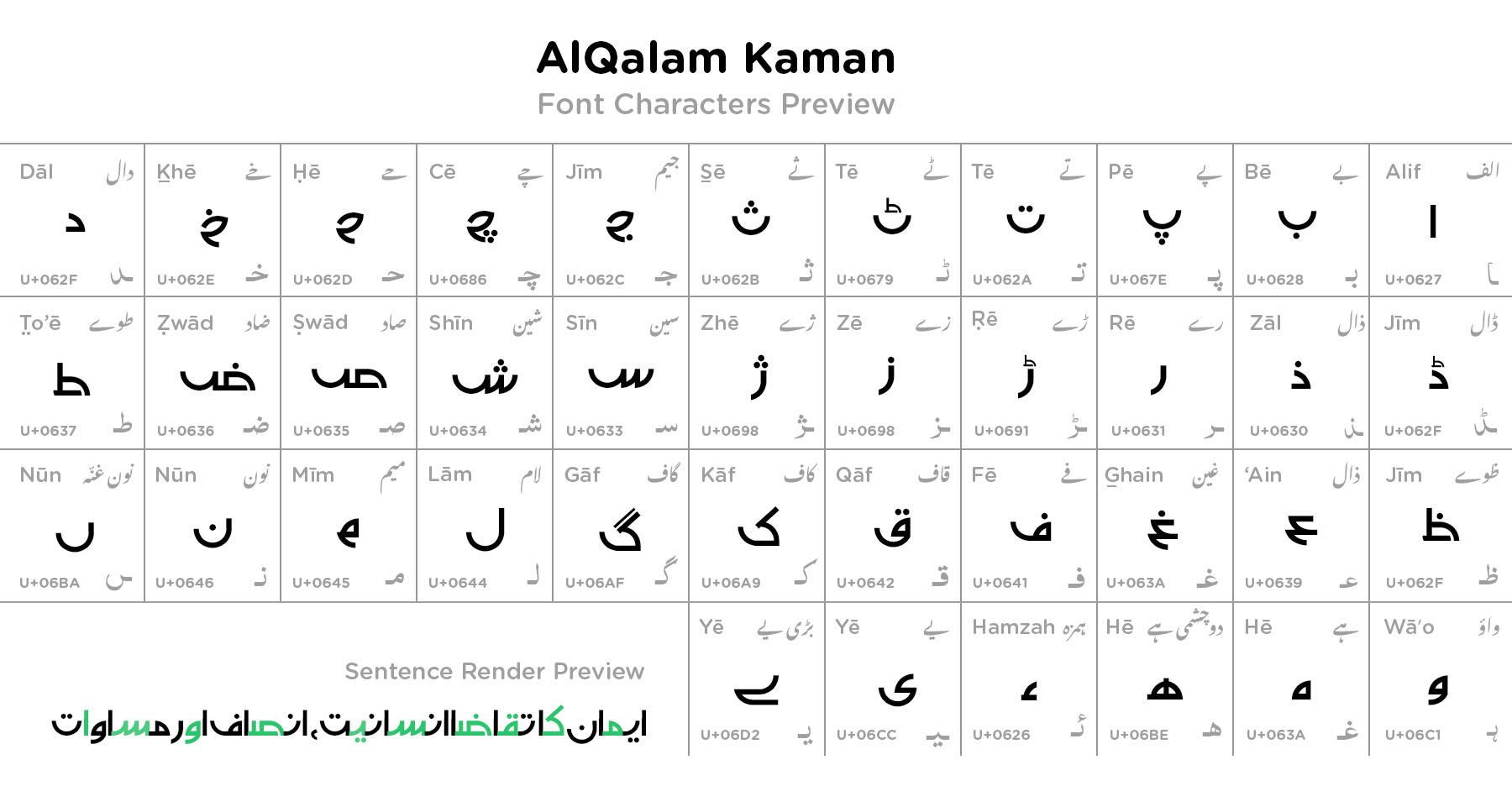
AlQalam Kaman is a desirable TrueType Urdu font that adds style to your writing. It belongs to an extensive font family named Qalam, which was designed by Pakistani typographers and font designers Muhammad Ishtiaq Ali Attari and Attari Qadri. It has a glyph count of 497 and a character set of 444 letters with support for Latin, Urdu, and Arabic. Graphic designers and publishers mostly use it to make their literary work more desirable and readable. It is a bold font with smooth curves and sharp edges. The letters are wide, monospaced, and rounded at the end, giving this font a unique look. The strokes maintain a uniform thickness throughout, contributing to the overall clarity and stability of the font. The negative spaces within letters like “o” and “e” are relatively large, making the font easily readable even at smaller sizes. Whether you’re writing documents or creating designs, this font makes your Urdu text look amazing with its distinct style.
AlQalam Kaman